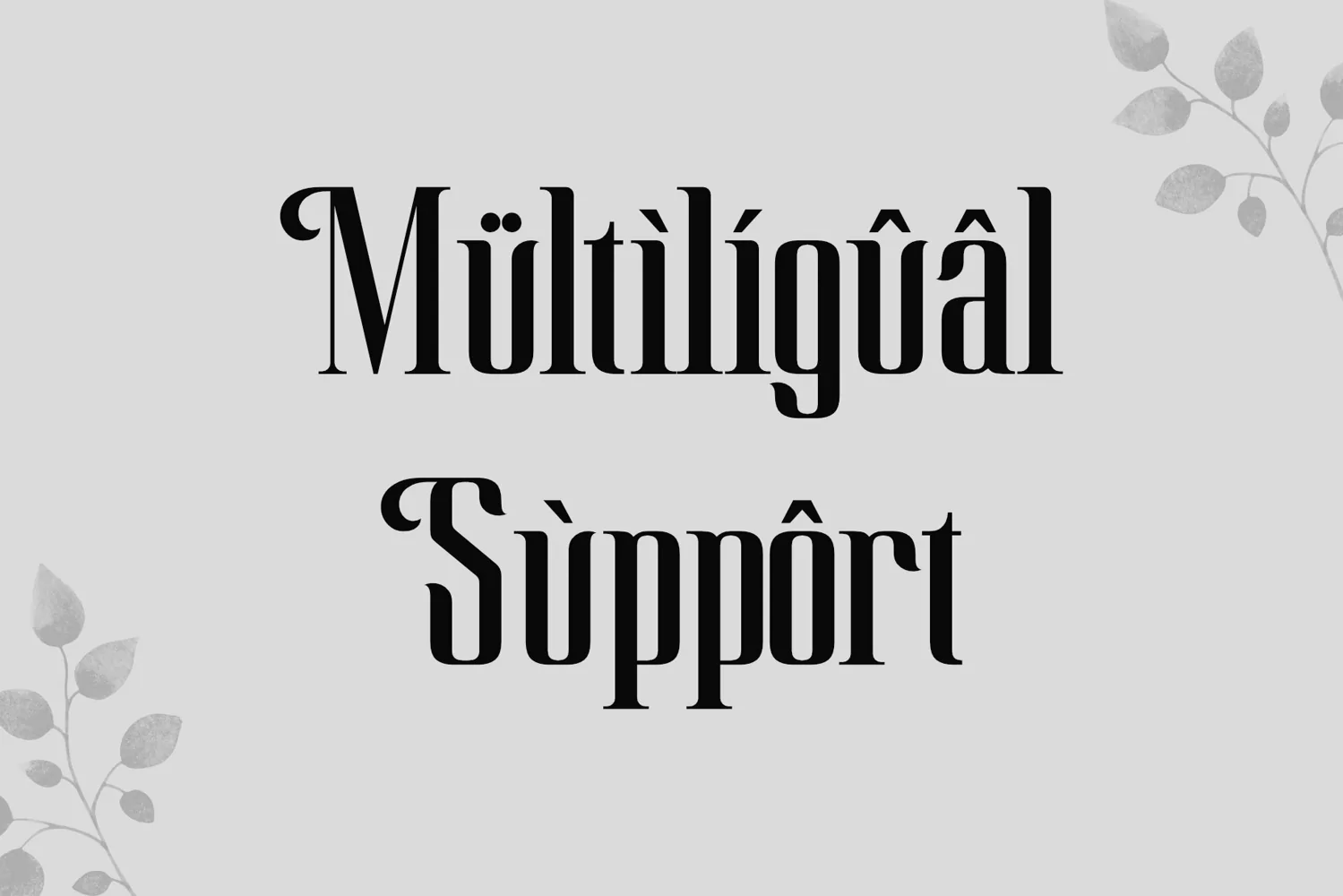
*Shamhock Font*
This pair was inspired by the movie poster design that i saw on some coffee shop, It was crafted by hand specially to add natural handmade feeling in its brand identity than i make it clean with pentool.
Shamhock font has 206 character set included
Shamhock Font is very good looking in logo, labels, t-shirt prints, product packaging, invitations, advertising and others.